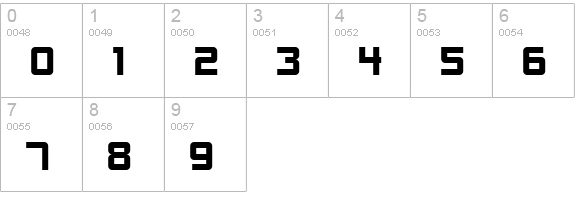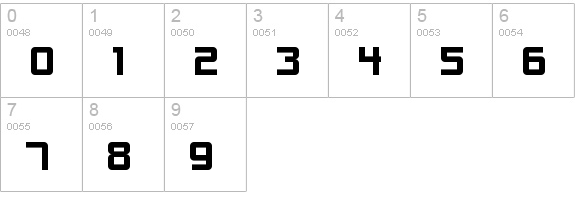
Alien Encounters Solid font is a captivating and futuristic typeface that exudes an otherworldly charm. Its bold and angular design gives off a sense of mystery and intrigue, making it perfect for projects that require a touch of the unknown. The solid version of this font adds a strong and authoritative presence to any text, making it stand out in a bold and powerful way. What's even better is that Alien Encounters Solid font is available for free download at FontsMarket.com. With just a few clicks, you can add this unique and eye-catching font to your collection without any cost. So why wait? Download Alien Encounters Solid font today and give your designs a touch of the extraterrestrial.